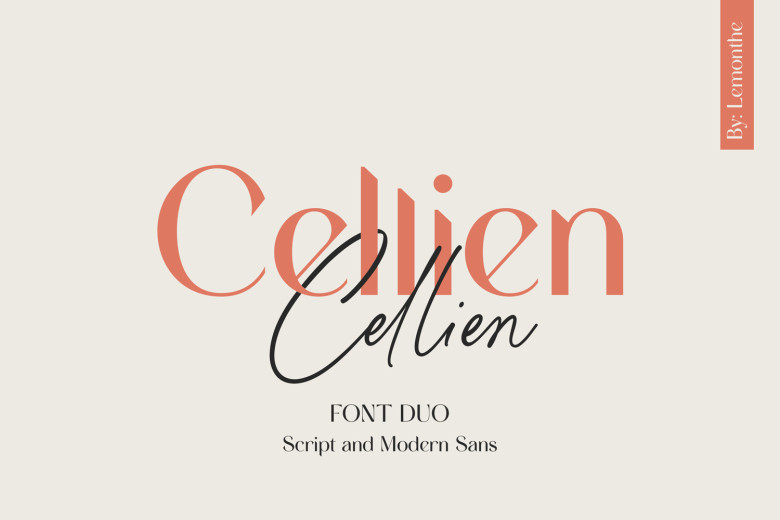
Cellien Font
Cellien Font Duo combines script and sans-serif fonts into an elegant and contemporary font design. Featuring over 140 ligatures and flowing, natural letterforms, its script font makes an eye-catching impression.
Fonts were specially created to work harmoniously together, making them ideal for logos, branding projects, posters, labels and product packaging.
Cellien Font Duo